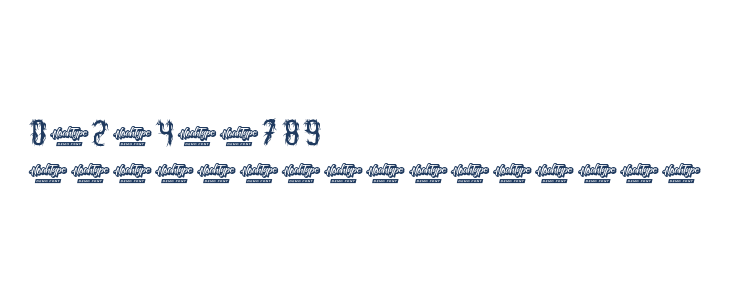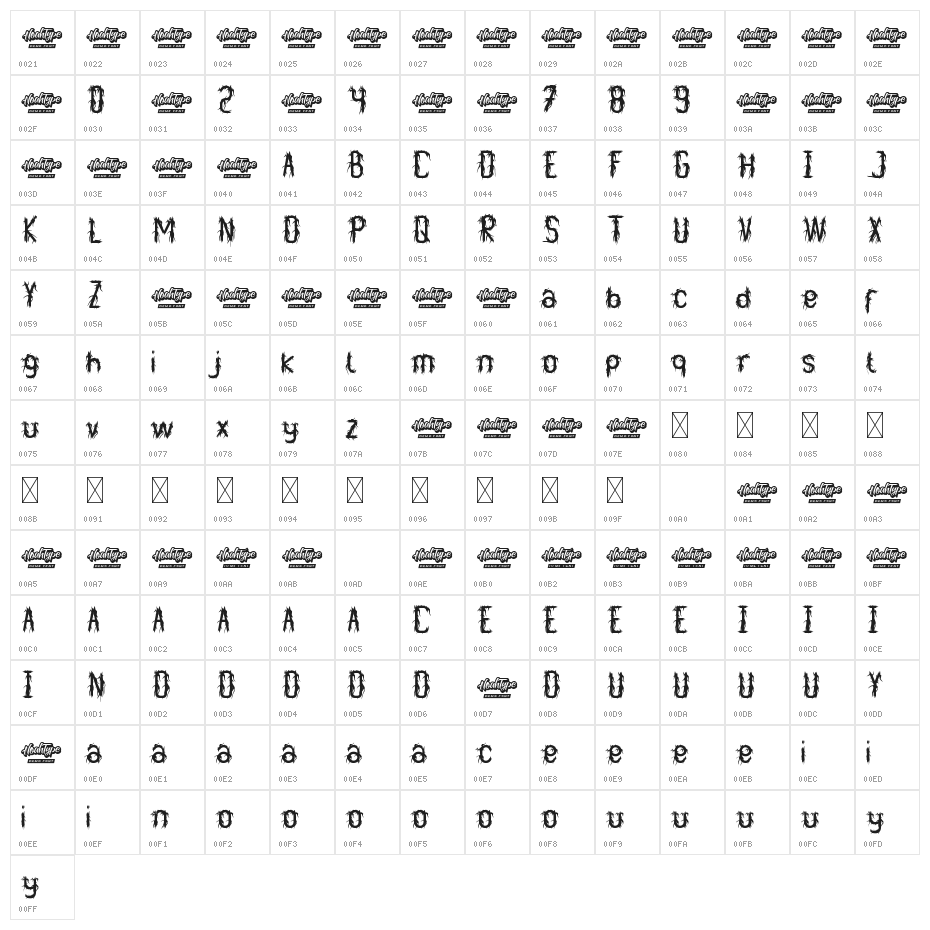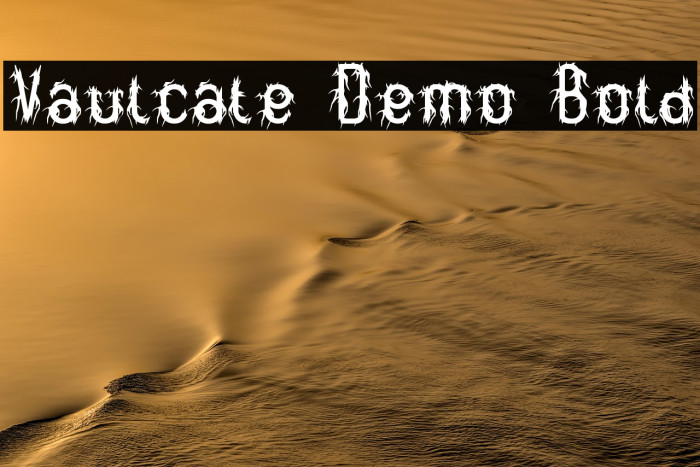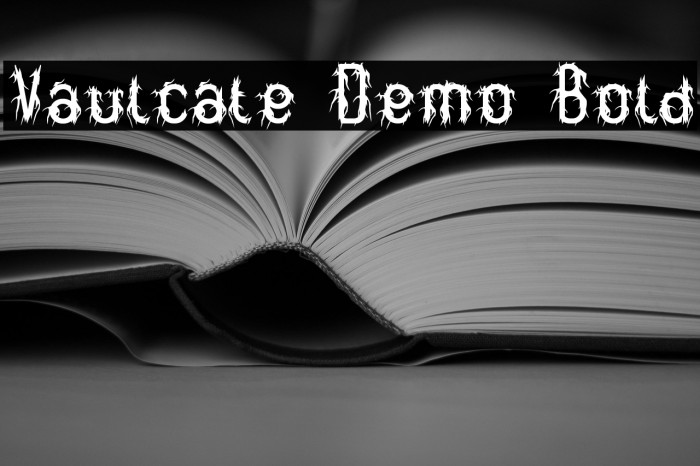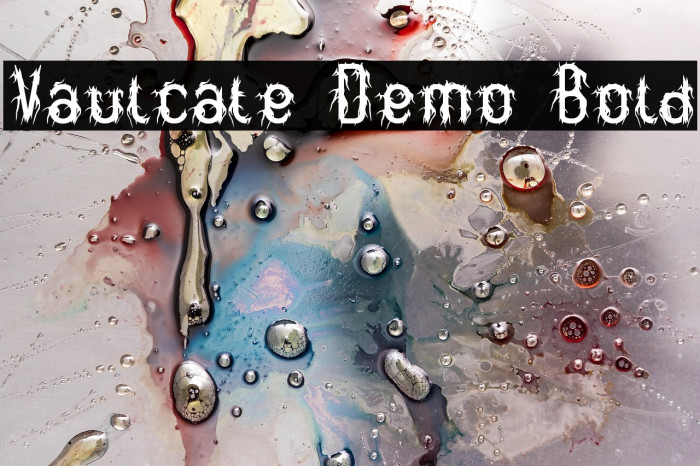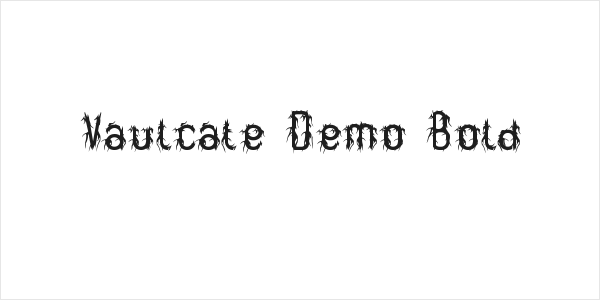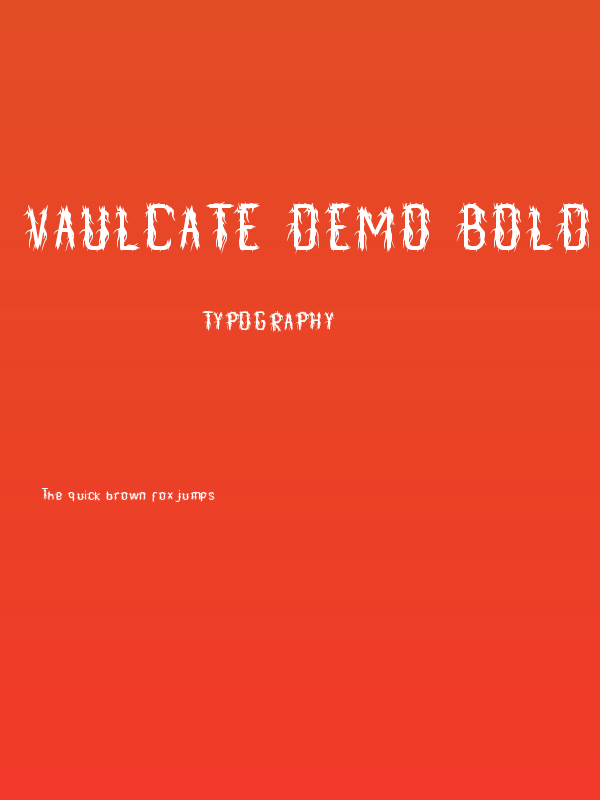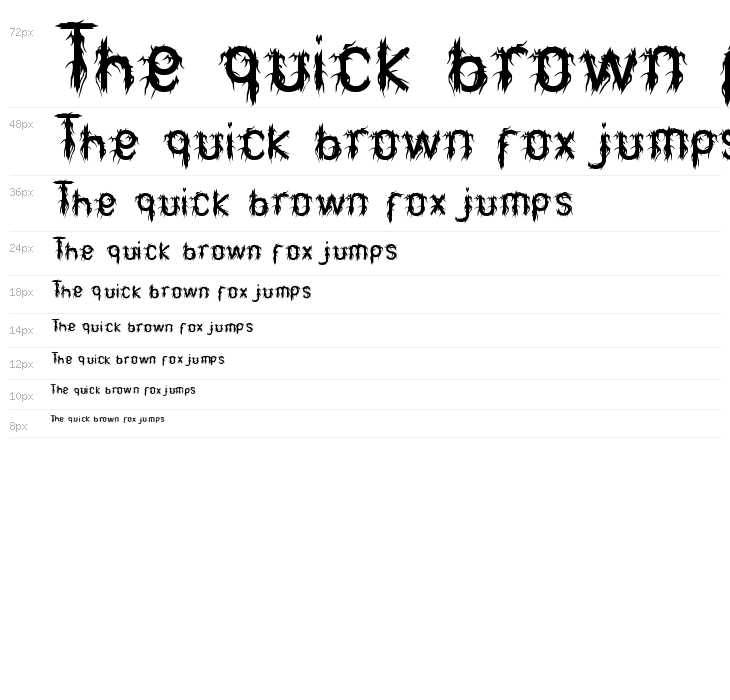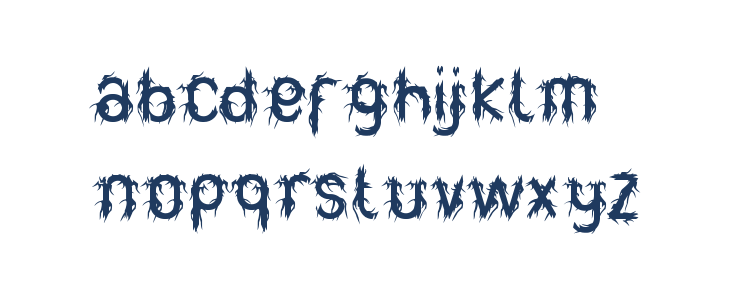
Vaulcate Demo Bold Font
Vaulcate Demo Bold Description
This font features a bold and striking design with sharp, thorn-like extensions protruding from each character, giving it a fierce and edgy appearance. The uppercase and lowercase letters maintain a consistent style, with jagged edges and a sense of movement, as if the letters are alive with energy. The numbers and special characters follow the same aesthetic, ensuring a cohesive look across all glyphs. This font is highly decorative, making it ideal for projects that require a dramatic and impactful visual statement. Its unique style is reminiscent of gothic or horror themes, making it suitable for creative and unconventional uses.
| Proposed Projects | Ideal for horror-themed posters, edgy branding, album covers, and creative event invitations. |